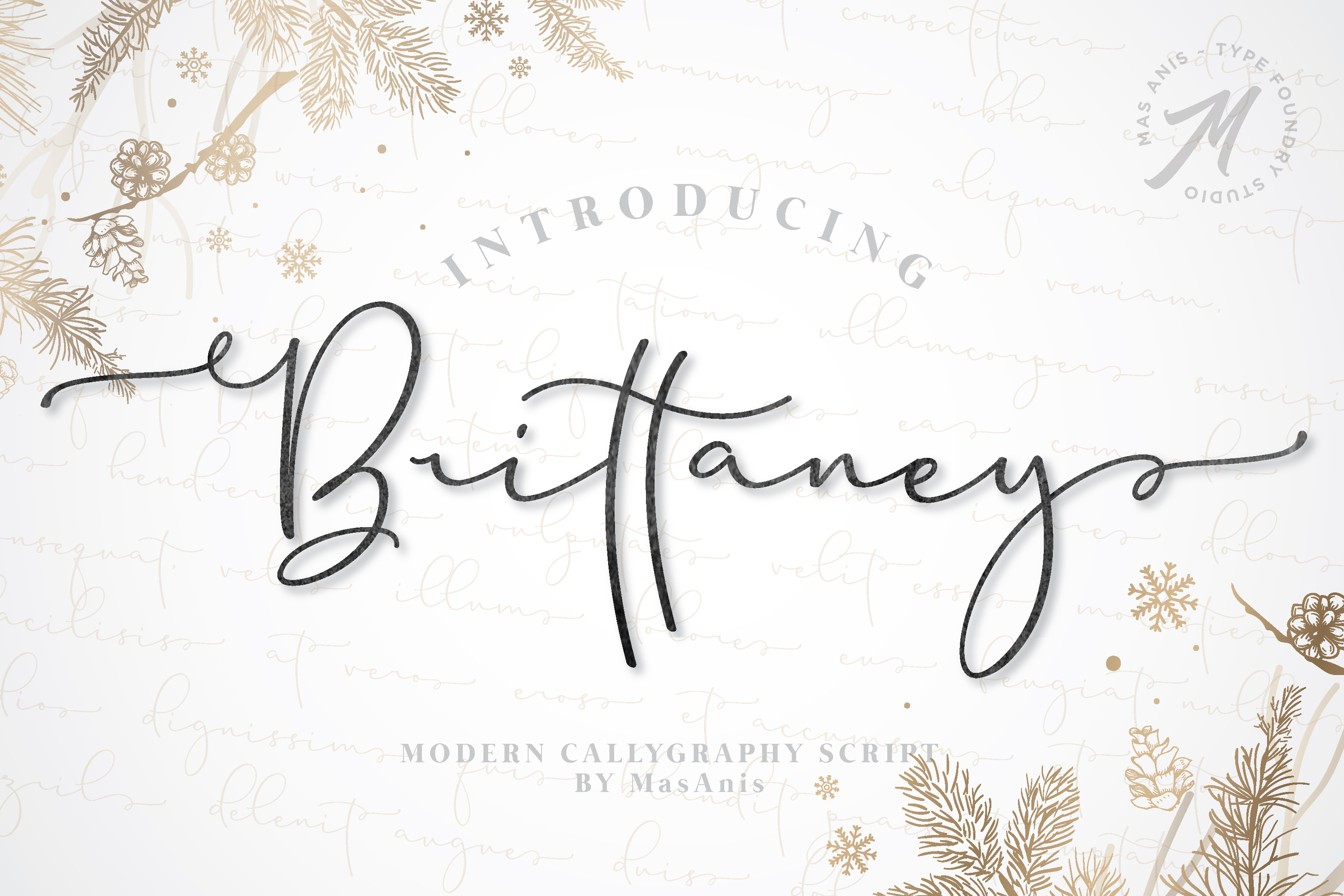
Brittaney // Modern Calligraphy Font
Meet our new font, Brittaney!
Brittaney is a modern and elegant font with a lot of stylistic alternates for your beautiful project. We made this font carefully so that each letter could be connected well and elegantly either using alternate or not.
with start and ending swash, and middle swash for some letters, this is very easy to use, just rely on your creativity !
- Ligature & alternates
- Standart Uppercase and Lowercase Alphabet
- Numbers and Punctuations
- Stylistic Sets
- Contextual Alternate
- OpenType Features
- Multilingual support AÀÁÂÃÄÅCÇDEÈÉÊËIÌÍÎÏNÑOØÒÓÔÕÖUÙÜÚÛYÝŸỲŸ